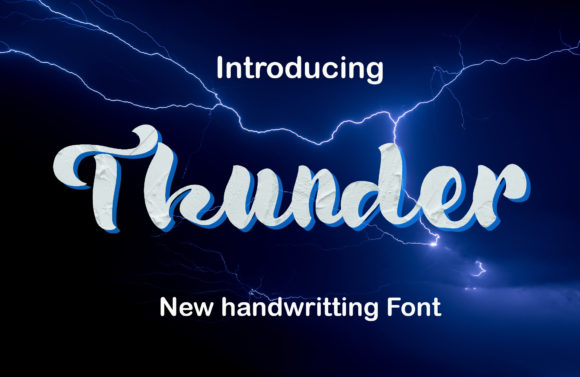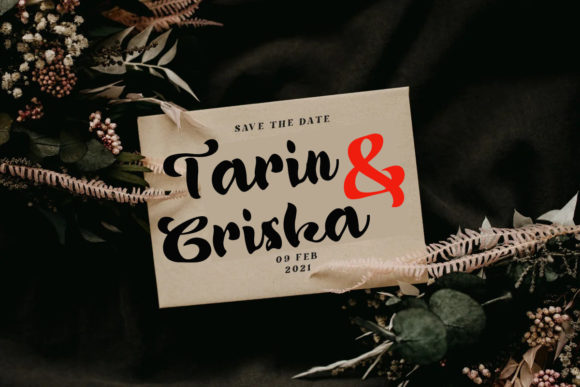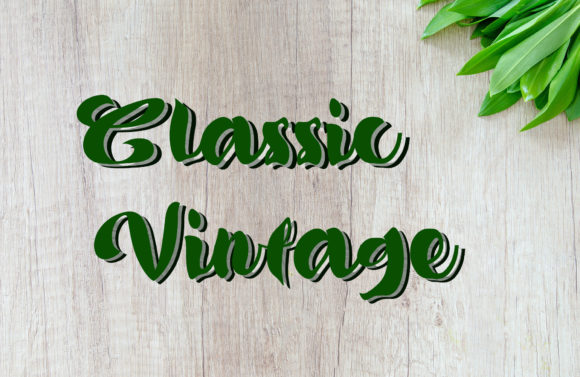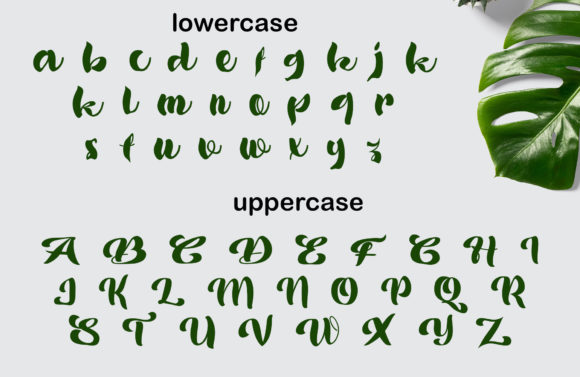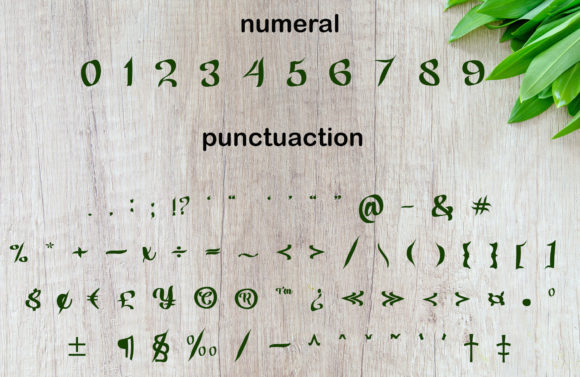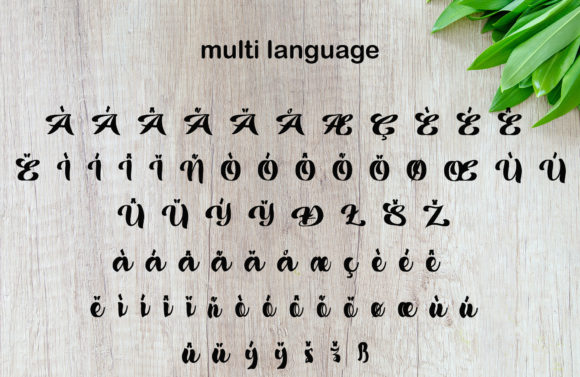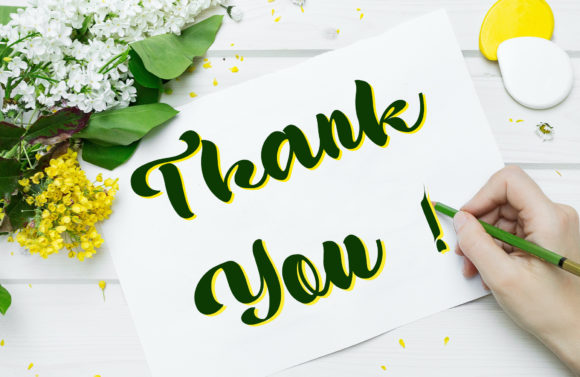
Thunder Font
About Thunder Font
**Thunder Font: Handwritten Style for Versatile Designs**
Introducing *Thunder Font*, a new typeface with a handwritten style that brings a touch of authenticity to your designs. This font is perfect for a wide range of applications, making it ideal for branding, apparel or fashion sets, quotes, product packaging, wedding invitations, greeting cards, labels, and more. With its versatile appeal, *Thunder* is designed to enhance the visual aesthetic of various creative projects.
The charm of *Thunder* lies in its handwritten style, adding a personal and genuine touch to your text. The fluidity of each stroke creates a dynamic and organic feel, making this font well-suited for designs where an authentic and approachable vibe is desired.
Whether you’re working on branding materials that need a unique flair, crafting apparel designs that stand out, or creating quotes and labels that require a personal touch, *Thunder Font* adapts seamlessly to diverse design needs.
The versatility of *Thunder* extends to different contexts, making it a valuable asset for your creative toolkit. Its handwritten aesthetic can bring a sense of warmth to wedding invitations, add character to greeting cards, or infuse a touch of authenticity into product packaging.
Incorporate *Thunder Font* into your design projects to elevate them with a handwritten style that resonates with authenticity. Let it be the font that enhances your branding, apparel, quotes, and various creative endeavors, adding a dynamic and personal dimension to your visual expressions.